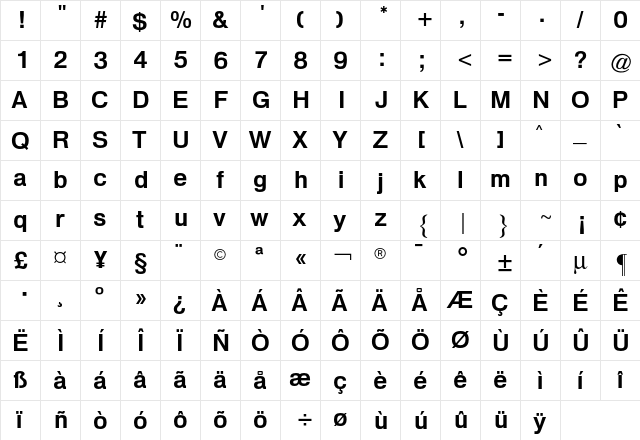
Heldustry CG Demi Regular
| Foundry | Miles Inc |
Design Context for Heldustry CG Demi Typeface
Heldustry CG Demi offers clean, dependable letterforms without strong stylistic allegiance, making it a practical choice for designers who need flexibility.
Pro Tip: Use Heldustry CG Demi in both headline and body roles to test its range before committing to a single application.